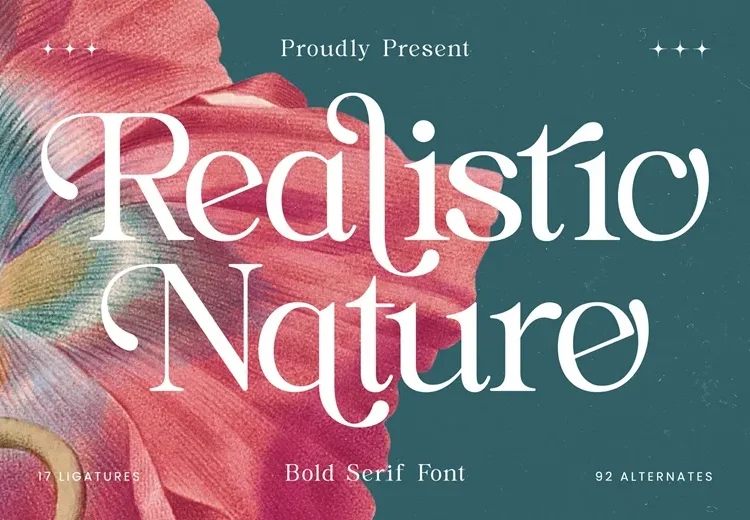
Realistic Nature Font
Realistic Nature is a sophisticated serif typeface designed to add elegance and luxury to any project. Its refined curves and timeless appeal make it an excellent choice for logo design, branding, home accessories, and product packaging. Whether you’re creating quotes, posters, or t-shirts, this font enhances the aesthetic value of your work.
Perfect for various creative uses, Realistic Nature works beautifully on book covers, name cards, invitations, greeting cards, labels, and photography watermarks. It brings an air of sophistication to special events and all other delightful projects requiring a luxurious serif touch.
With its versatile design, this typeface is ideal for both personal and professional applications, ensuring that your creations exude charm and elegance.